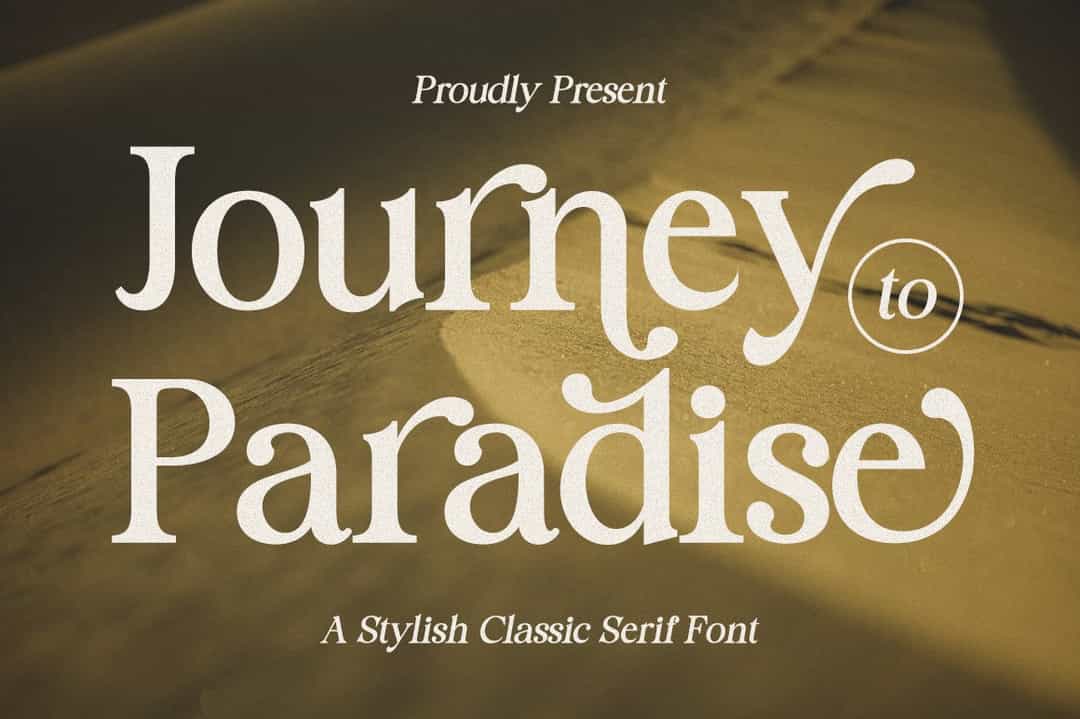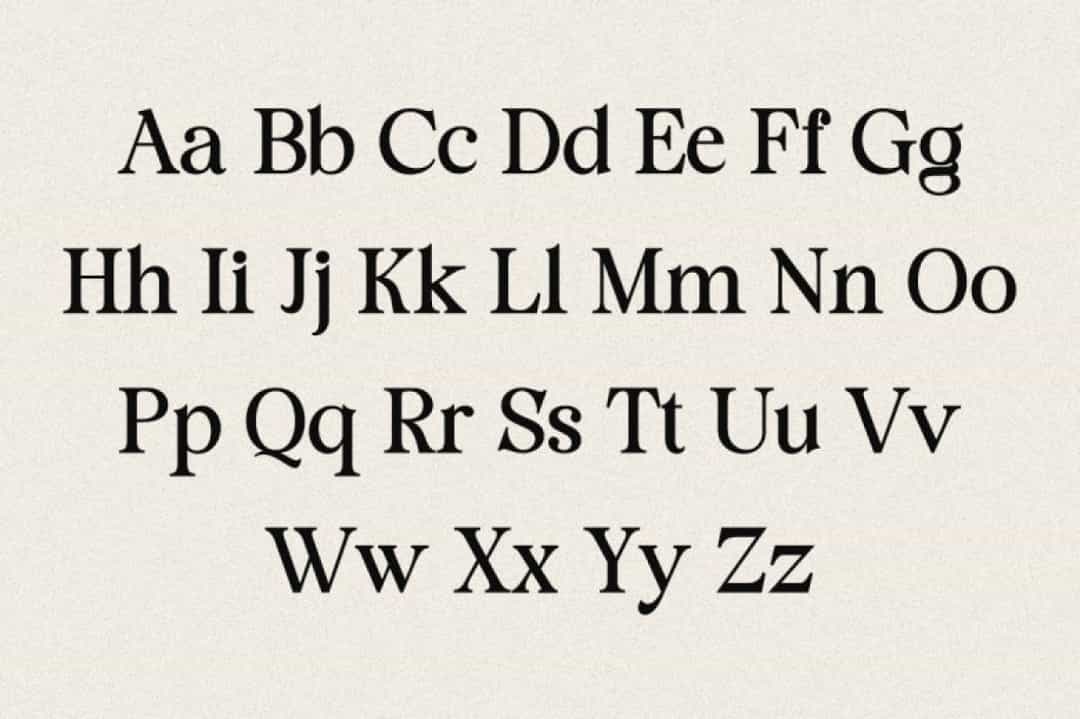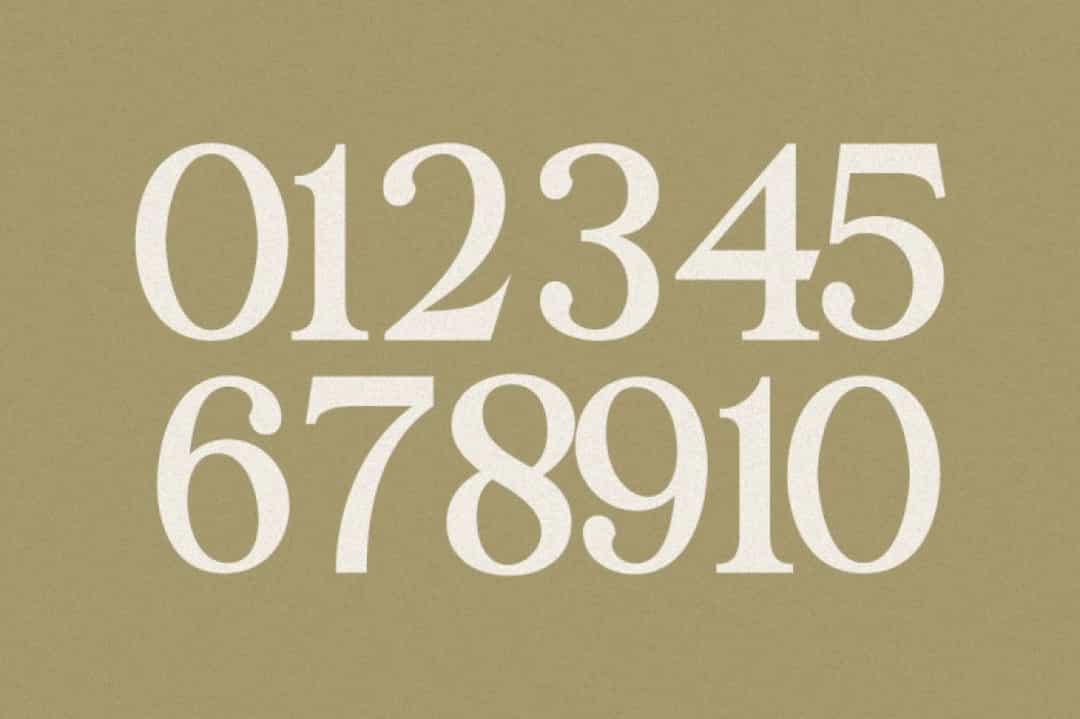
Journey to Paradise is a sleek, slim-lettered serif typeface. Boasting elegant calligraphic features while remaining modern and contemporary, you will fall in love with its contemporary yet classical aesthetic – boosting any project to the next level!